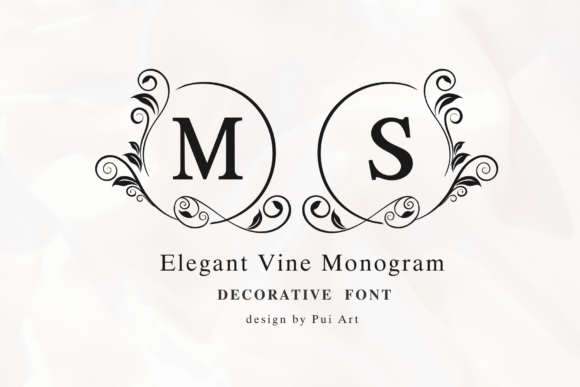
Elegant Vine Monogram Font: Elevate Your Designs with Timeless Sophistication
Are you searching for a font that exudes elegance and sophistication? Look no further than the Elegant Vine Monogram Font. This stylish decorative alphabet features classic serif letters framed by delicate vine flourishes, perfect for adding a touch of refinement to any creative project.
What is Elegant Vine Monogram Font?
The Elegant Vine Monogram Font is a beautifully designed monogram alphabet that combines traditional serif letters with intricate vine flourishes. Each letter is carefully crafted to create a stunning visual effect, making it ideal for elegant monograms, wedding projects, branding, invitations, and personalized crafts.
Key Features of Elegant Vine Monogram Font
- Classic Serif Letters: The font features traditional serif letters with a timeless appeal, perfect for creating elegant monograms and designs.
- Delicate Vine Flourishes: The delicate vine flourishes add a touch of sophistication and whimsy to each letter, making it perfect for wedding projects and romantic designs.
- Versatile: The Elegant Vine Monogram Font is suitable for a wide range of creative projects, including logos, branding, invitations, and DIY designs.
Uses for Elegant Vine Monogram Font
The Elegant Vine Monogram Font is perfect for a variety of creative projects, including:
- Elegant Monograms: Create stunning monograms for wedding invitations, stationery, and other personalized items.
- Wedding Projects: Add a touch of elegance to your wedding designs, including invitations, programs, and decorations.
- Branding: Use the font to create sophisticated logos and branding materials for your business.
- Invitations: Create beautiful invitations for special occasions, including weddings, baby showers, and birthday parties.
- DIY Designs: Use the font to create personalized crafts, including iron-on designs, vinyl decals, and paper crafts.
Why Choose Elegant Vine Monogram Font?
There are many reasons to choose the Elegant Vine Monogram Font for your creative projects. Here are a few:
- Timeless Appeal: The font has a timeless appeal that will never go out of style, making it a great investment for designers and crafters.
- Elegant and Sophisticated: The font exudes elegance and sophistication, making it perfect for high-end designs and projects.
- Versatile: The font is versatile and can be used for a wide range of creative projects, from wedding designs to branding and DIY crafts.
Tips for Using Elegant Vine Monogram Font
Here are a few tips for using the Elegant Vine Monogram Font in your creative projects:
- Use it Sparingly: Use the font sparingly to add a touch of elegance to your designs. It’s perfect for monograms, titles, and headings.
- Pair it with Other Fonts: Pair the Elegant Vine Monogram Font with other fonts to create a unique and interesting visual effect.
- Use it for Special Occasions: Use the font for special occasions, such as weddings, anniversaries, and birthdays, to add a touch of elegance and sophistication.
The Elegant Vine Monogram Font is a beautiful and versatile font that is perfect for designers and crafters looking to add a touch of elegance and sophistication to their creative projects. With its classic serif letters, delicate vine flourishes, and timeless appeal, this font is sure to become a favorite in your design arsenal. Whether you’re creating elegant monograms, wedding projects, branding materials, or DIY designs, the Elegant Vine Monogram Font is the perfect choice.